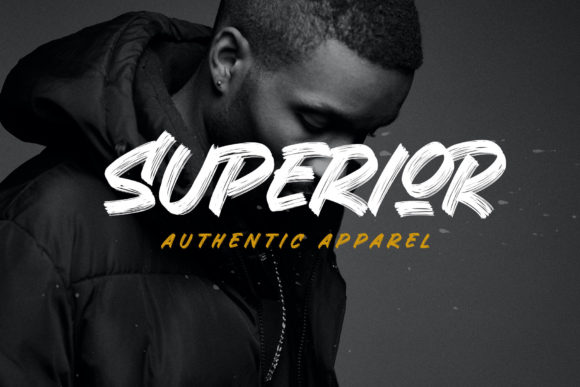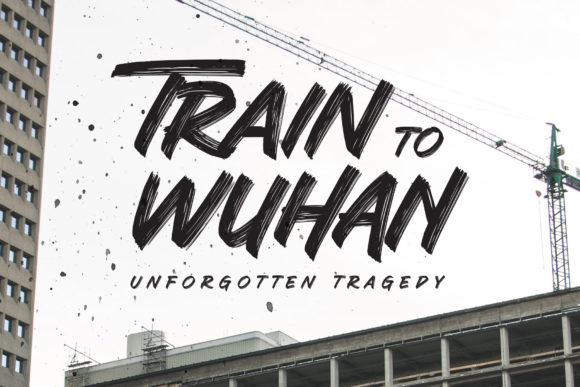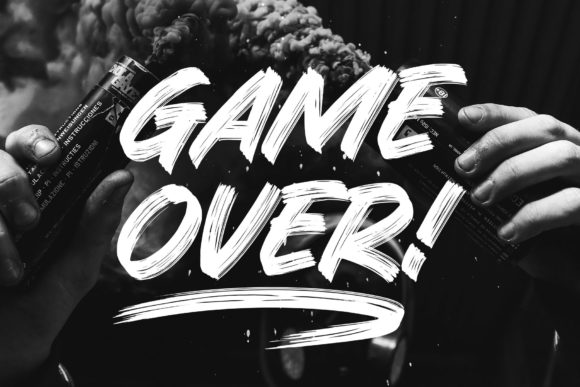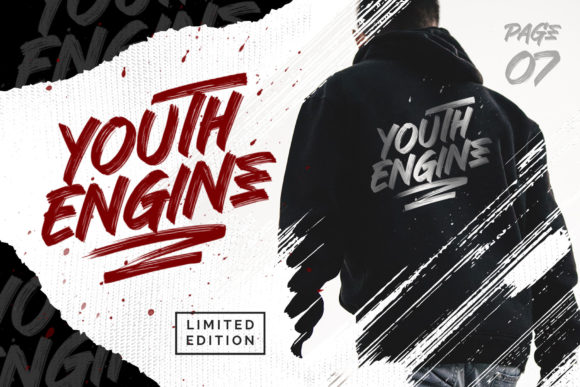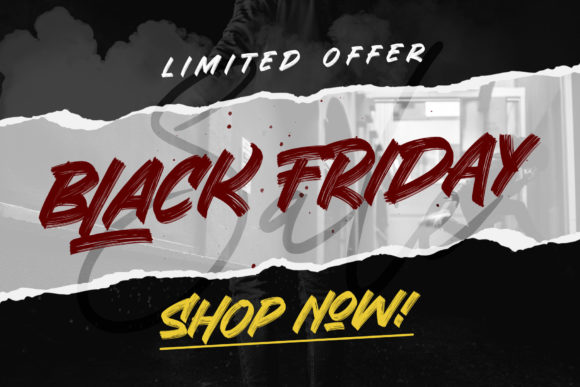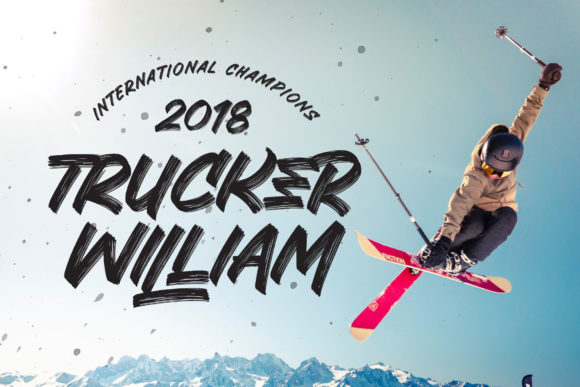
Introducing Granesta Font: The Ultimate Choice for Bold and Edgy Designs
Are you a designer or crafter looking for a font that can add a touch of coolness and boldness to your designs? Look no further than Granesta Font! This stunning brushed display font is perfect for creating eye-catching designs that demand attention. In this article, we’ll take a closer look at Granesta Font, its features, and how you can use it to elevate your designs.
What is Granesta Font?
Granesta Font is a modern and edgy brushed display font that is designed to make a statement. Its bold and cool style makes it perfect for designs that require a touch of sophistication and attitude. Whether you’re working on a logo, advertisement, or clothing design, Granesta Font is sure to impress.
Key Features of Granesta Font
- Bold and Edgy Style: Granesta Font boasts a bold and edgy style that is sure to grab attention.
- Brushed Texture: The font features a unique brushed texture that gives it a rough and rugged look.
- Highly Versatile: Granesta Font is suitable for a wide range of designs, including t-shirts, sportswear, logos, advertisements, clothing, and more.
- Easily Readable: Despite its bold style, Granesta Font is easily readable, making it perfect for designs that require a clear message.
Use Cases for Granesta Font
Granesta Font is an incredibly versatile font that can be used for a wide range of designs. Here are some use cases to get you started:
- T-Shirts and Apparel: Create eye-catching t-shirt designs that will stand out from the crowd.
- Sportswear: Add a touch of boldness to your sportswear designs with Granesta Font.
- Logos: Create a memorable logo that makes a statement with Granesta Font.
- Advertisements: Use Granesta Font to create bold and attention-grabbing advertisements.
- Clothing and Fashion: Elevate your clothing and fashion designs with the bold and edgy style of Granesta Font.
Why Choose Granesta Font?
So why choose Granesta Font over other fonts? Here are just a few reasons:
- Unique Style: Granesta Font boasts a unique and stylish design that will set your designs apart.
- High-Quality Design: The font is designed to high-quality standards, ensuring that it looks great in any design.
- Easily Customizable: Granesta Font is easily customizable, allowing you to adjust the font to suit your design needs.
Tips for Using Granesta Font
Here are some tips for getting the most out of Granesta Font:
- Use it Boldly: Granesta Font is designed to be used boldly, so don’t be afraid to experiment with different sizes and styles.
- Pair it with Other Fonts: Granesta Font pairs well with other fonts, so try combining it with different fonts to create a unique look.
- Experiment with Colors: Granesta Font looks great in a range of colors, so experiment with different colors to find the perfect look for your design.
In conclusion, Granesta Font is a cool and bold brushed display font that is perfect for designers and crafters looking to add a touch of sophistication and attitude to their designs. With its unique style, high-quality design, and versatility, Granesta Font is an excellent choice for a wide range of designs. Whether you’re working on a logo, advertisement, or clothing design, Granesta Font is sure to impress.